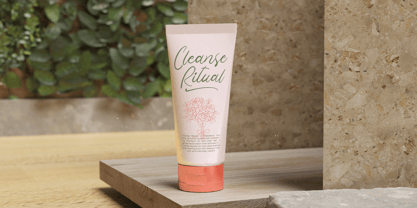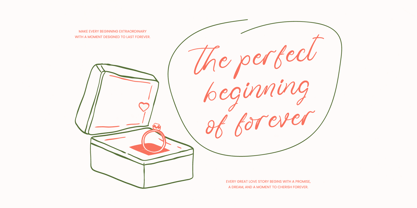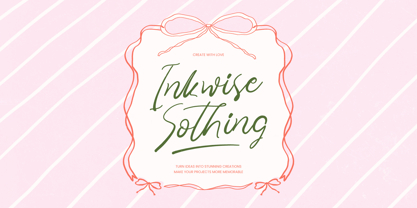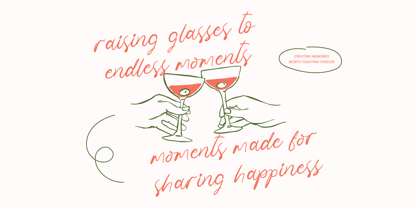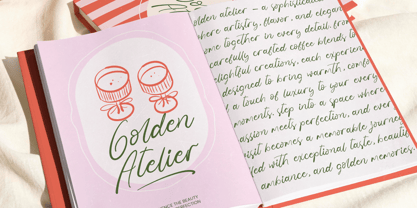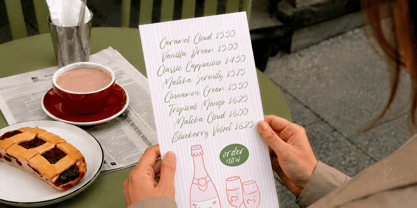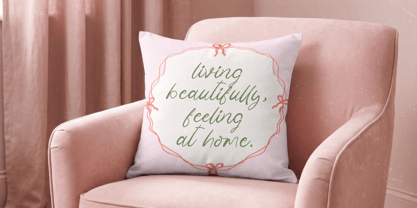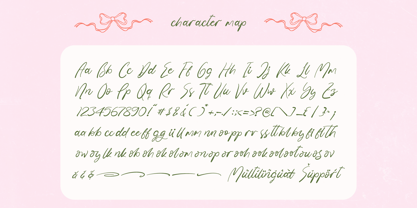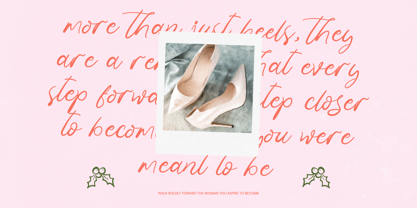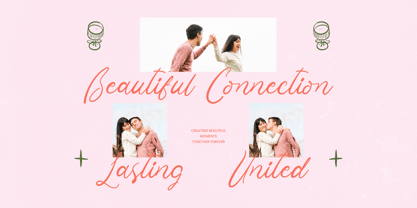
Inkwise Sothing
The Inkwise Sothing Font Family was designed by Heru Utama Putra and published by Stylishtype Studio. Inkwise Sothing contains 2 styles and family package options. More about this family
Experience the whimsical charm of Inkwise Sothing, a font that captures the heartbeat of personal connection in every fluid stroke. This delicate script brings an air of effortless grace and intimacy to your most cherished creative projects.
Inspired by the soft rustle of ribbons and the intimate warmth of handwritten letters, this typeface was born from a desire to blend nostalgia with contemporary flair. It evokes the feeling of a sun-drenched afternoon spent crafting memories, wrapped in the visual elegance of a hand-drawn satin bow.